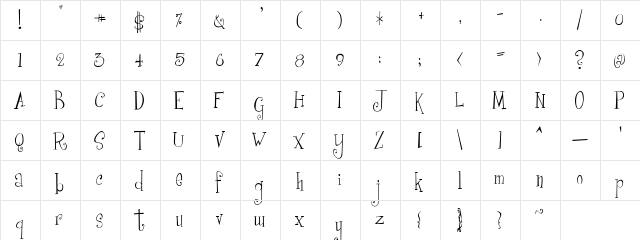
CurlyCue Regular
Design Context for CurlyCue Typeface
CurlyCue is a composed and adaptable typeface that performs quietly and consistently across a wide range of design contexts.